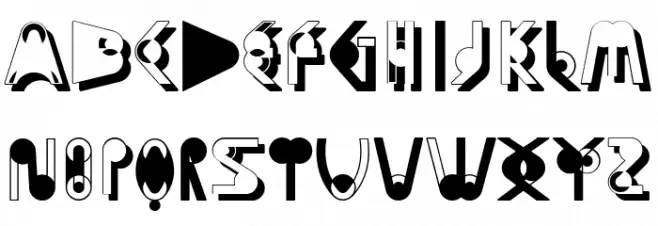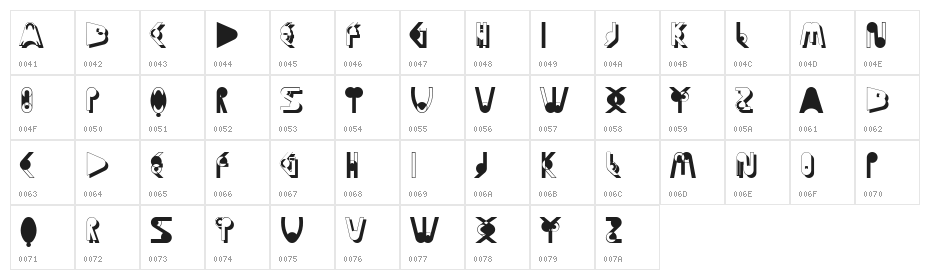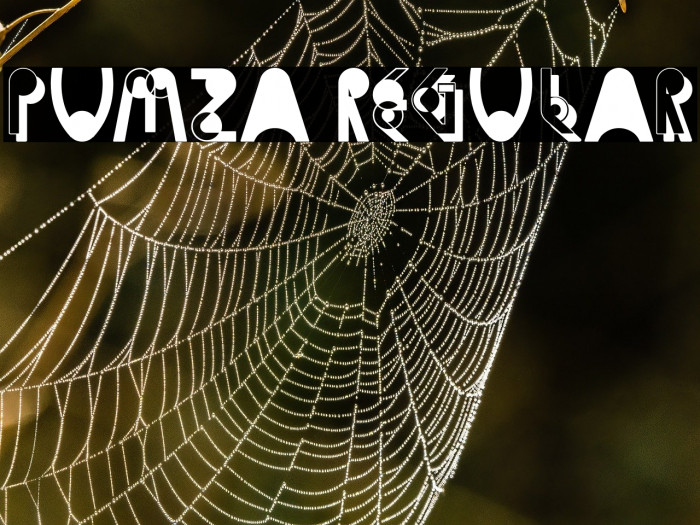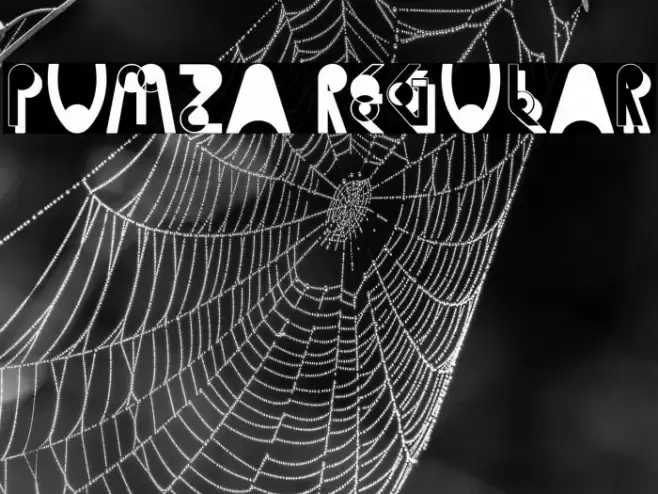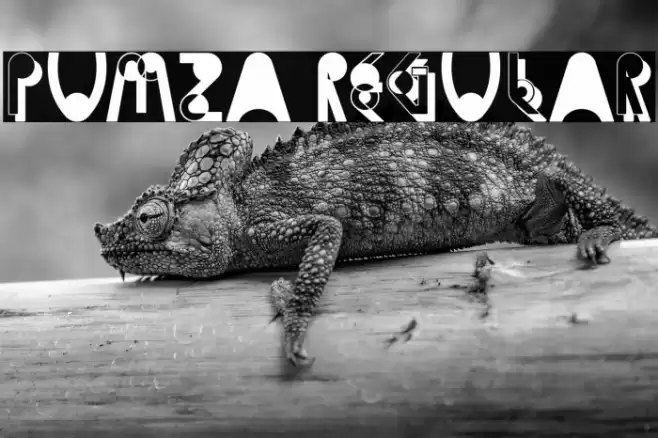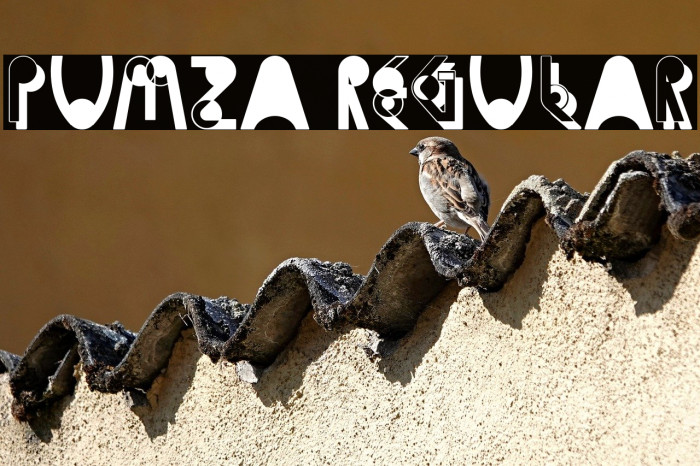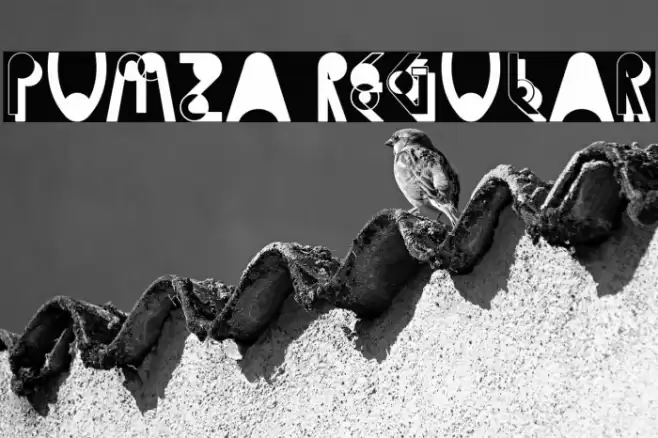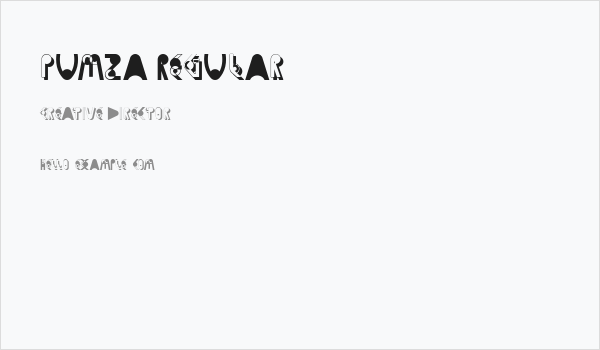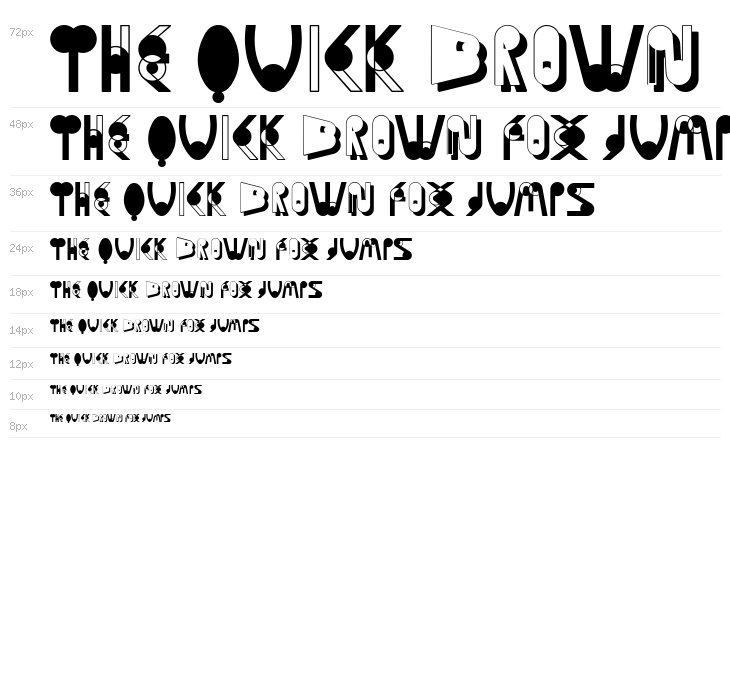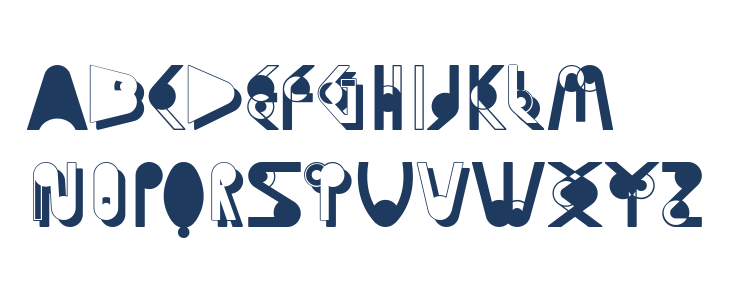
Pumza Regular Font
Pumza Regular Description
This font presents a bold and striking design with a highly decorative and geometric style. Each character is crafted with a mix of solid and outlined elements, creating a dynamic and visually engaging appearance. The uppercase letters are particularly distinctive, featuring unique shapes and forms that blend sharp angles with smooth curves. The lowercase letters maintain this aesthetic, offering a cohesive look across the alphabet. The numerals and special characters are equally stylized, ensuring consistency throughout. This font is ideal for projects that require a strong visual impact and a modern, artistic flair.